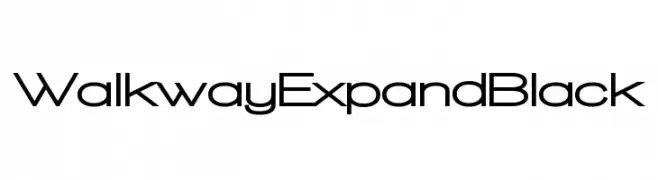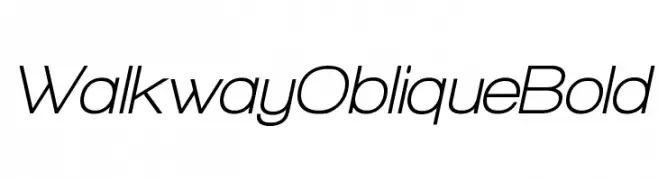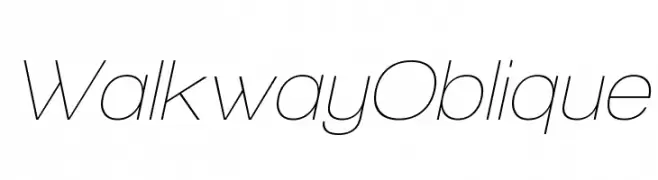
A sleek, modern oblique font with thin, elongated letterforms.
A sleek, ultra-condensed font with thin, elongated letterforms and minimal stroke width.
A modern, geometric font with ultra-bold weight and wide spacing.
A bold, geometric sans-serif font with a modern and clean design.
A sleek, modern oblique font with bold weight and consistent stroke width.
A modern, geometric sans-serif font with expanded, bold characters.
A modern, minimalist sans-serif font with uniform stroke width and clean lines.
A modern, condensed sans-serif font with semi-bold weight and geometric design.
A modern, oblique font with thin, elongated characters and wide spacing.
A sleek, modern semi-bold font with a reverse oblique style.